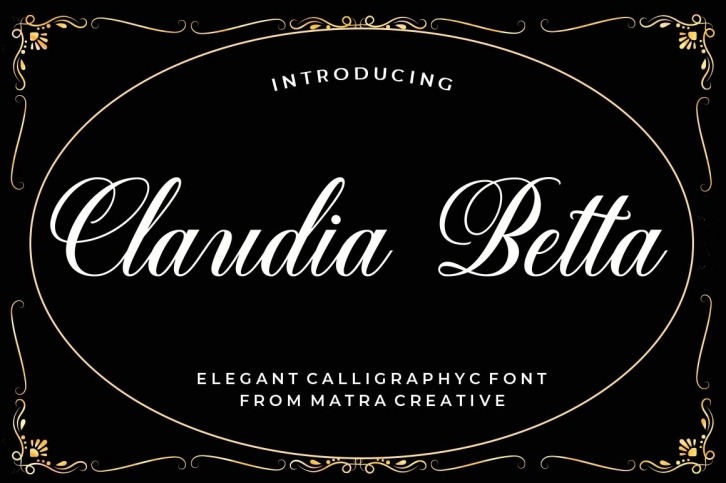
Claudia Betta is a great font that was designed by Matra Creative. Imagine the amount of combinations you can create using this font! The archive is 14.74 MB and it was released on November 11, 2018. Claudia Betta looks beautiful on wedding invitations, greeting cards, logos, posters, labels, t-shirt designs, logos, business cards and is perfect for use in ink or watercolor works, fashion, magazines, packaging and food menus, children's books and more!